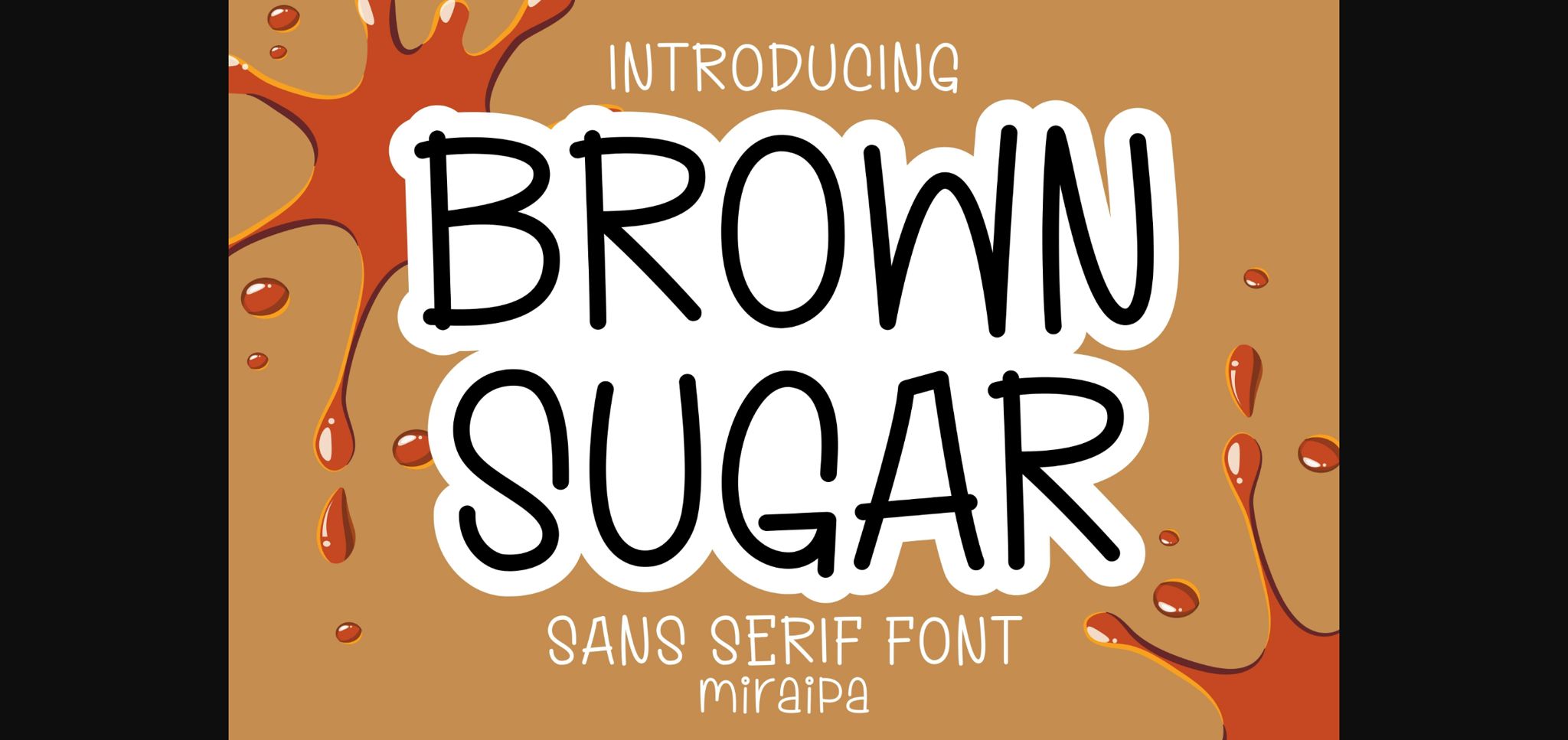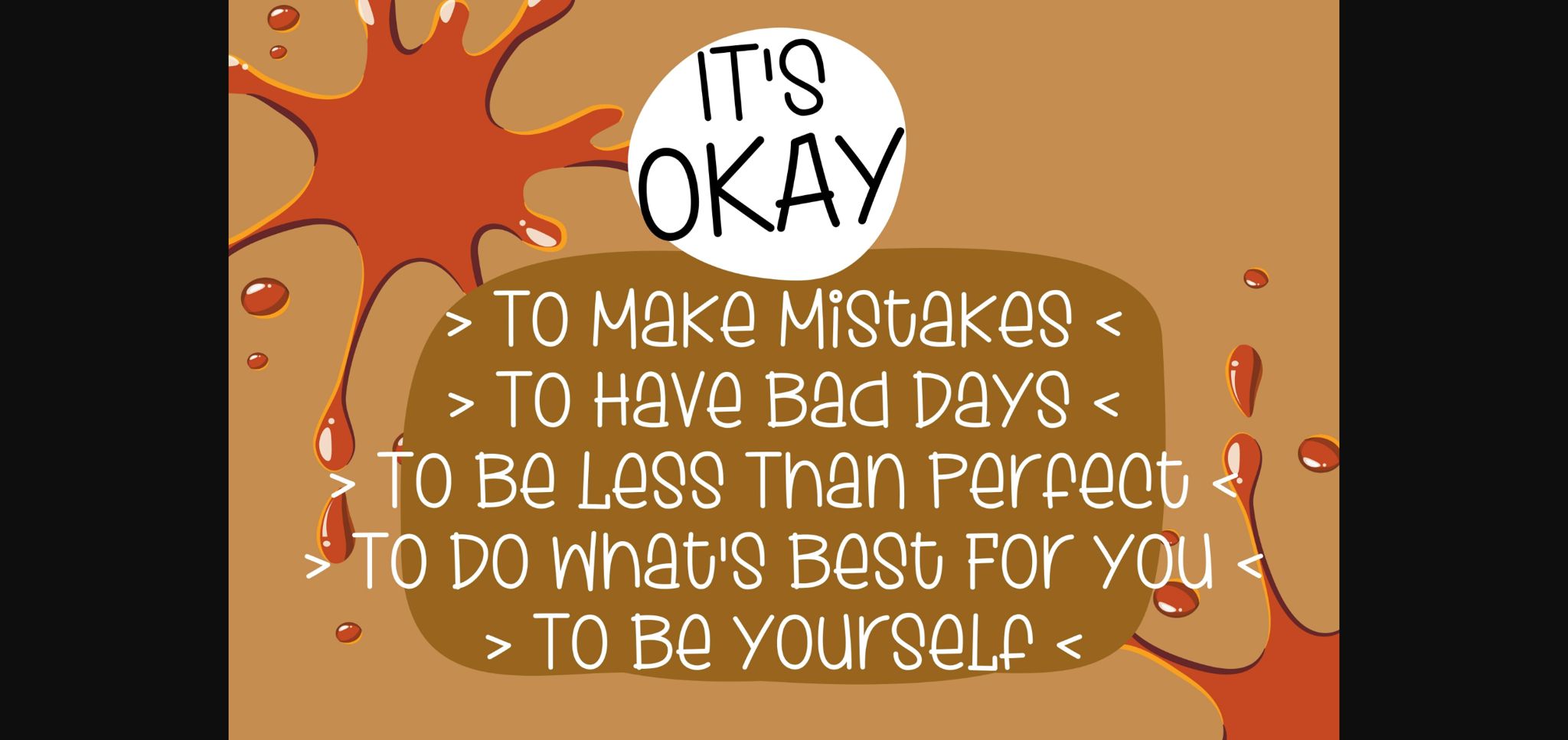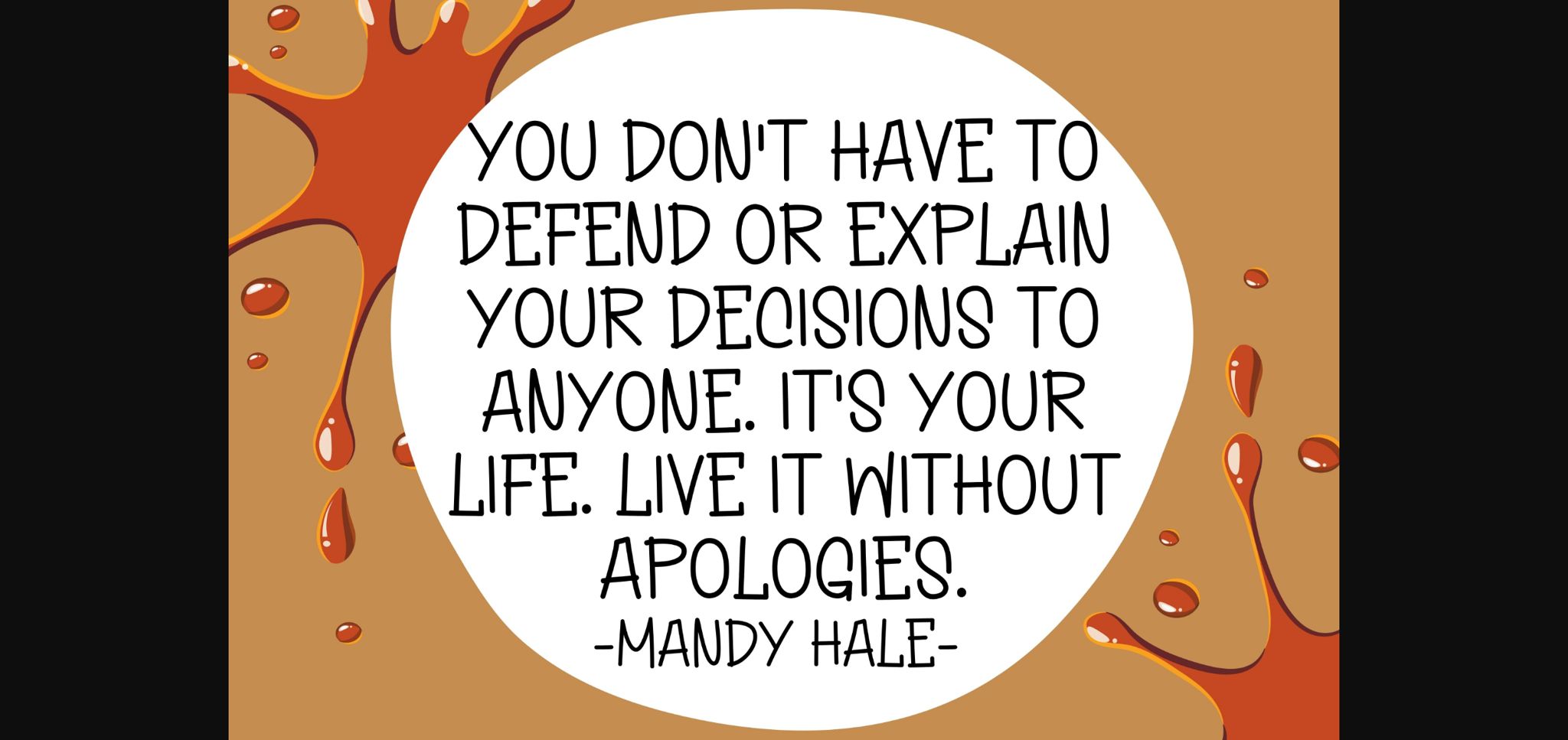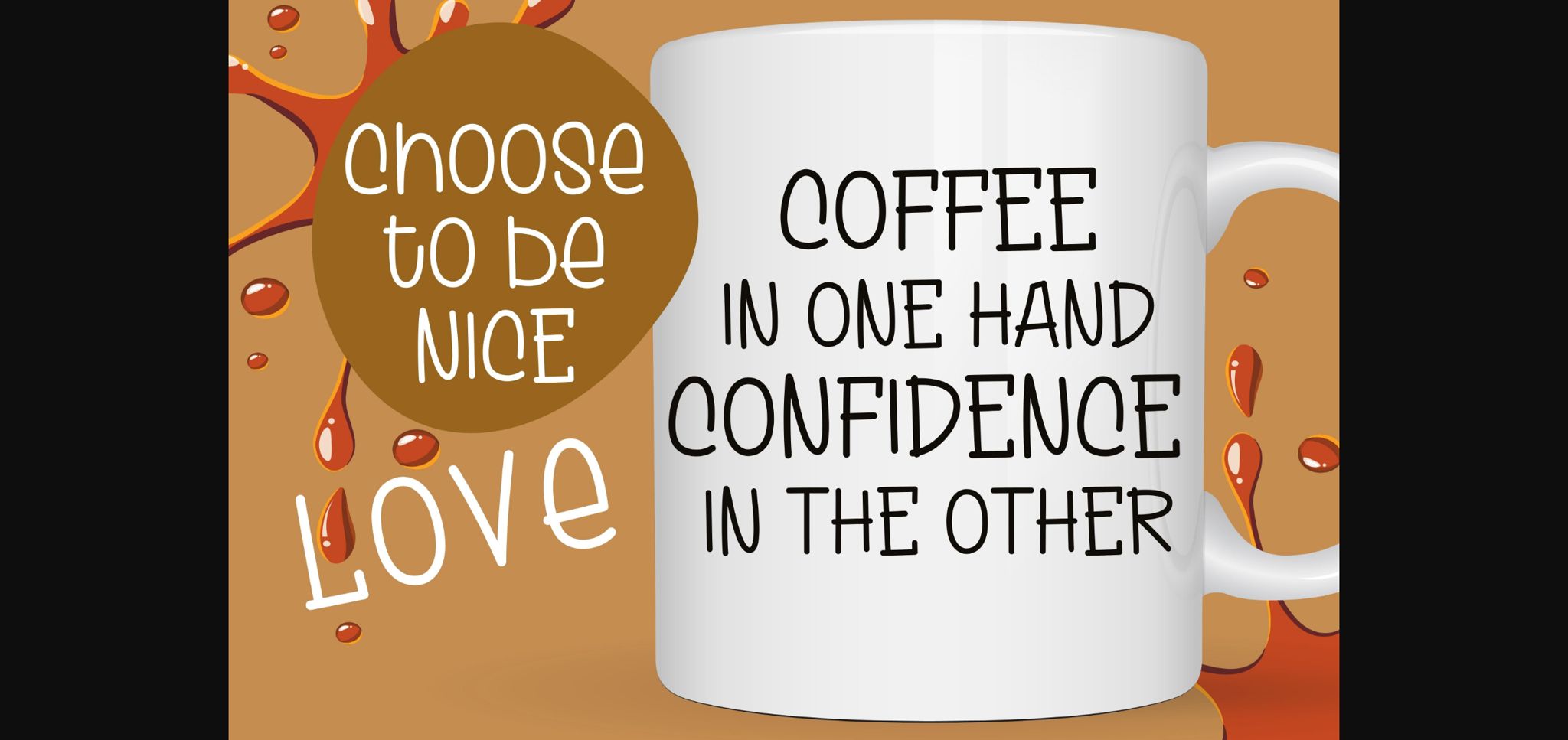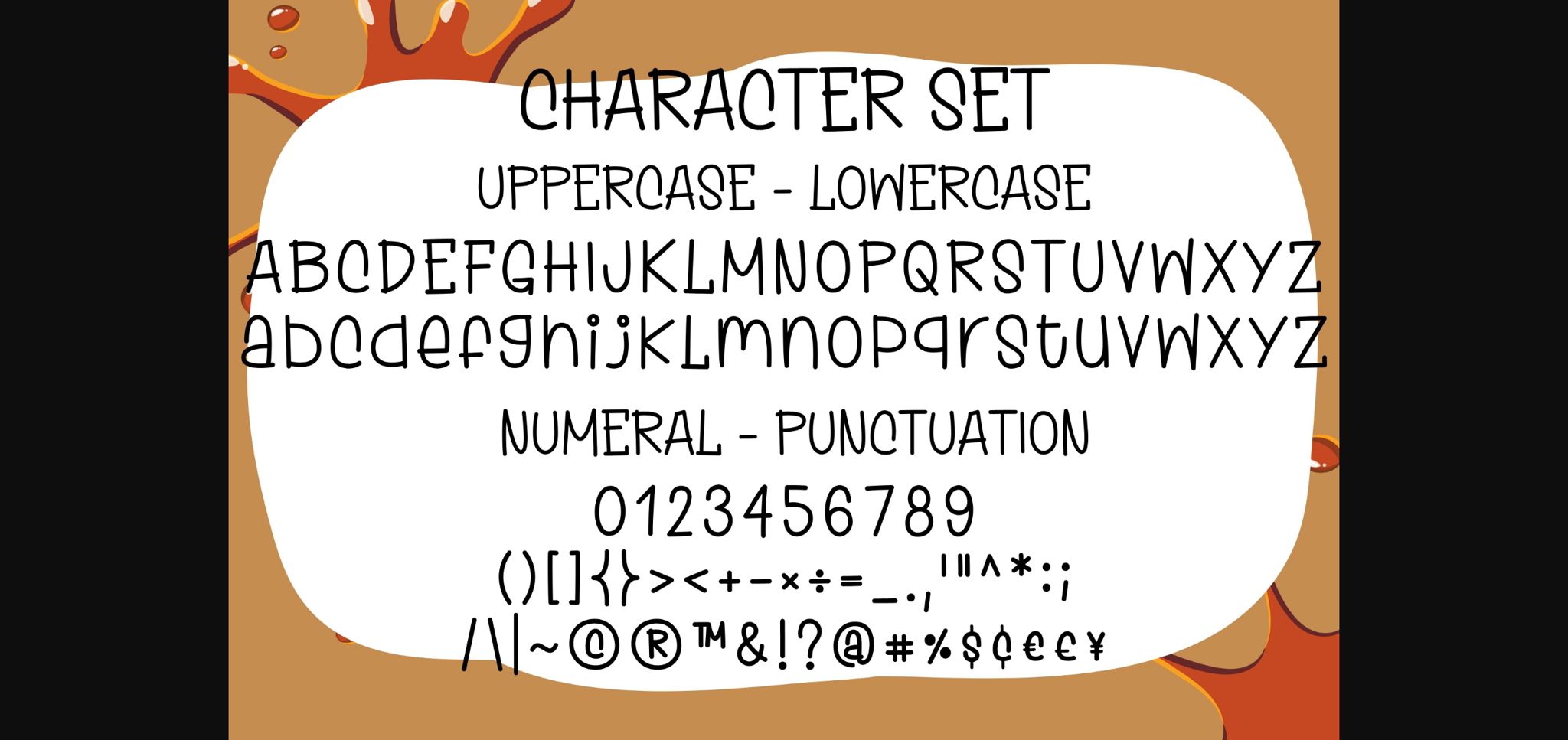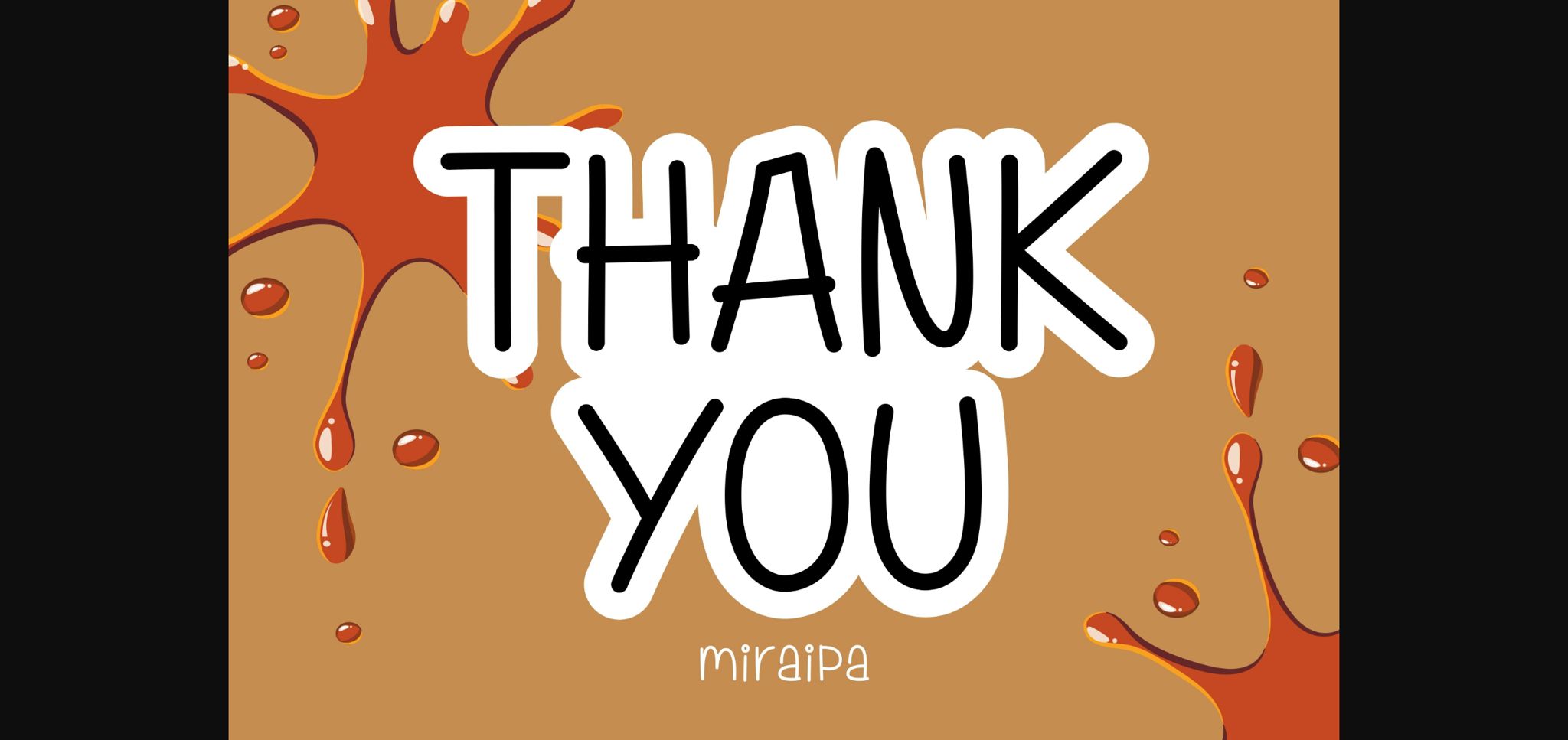
Brown Sugar Font
About Brown Sugar Font
Brown Sugar is designed in a cute and playful sans serif font style. It’s charming, whimsical, and a bit quirky. It would be awesome for your fun projects or diary planner. Let’s try it for your perfect projects such as Easter, back to school, weddings, party decorations, invitations, Fall, Halloween, Christmas, posters, blogs, clothing, child-related designs, greeting cards, social media posts, or anything that needs a friendly touch. Add it now to your fonts library, and it will bring any of your DIY projects to life.